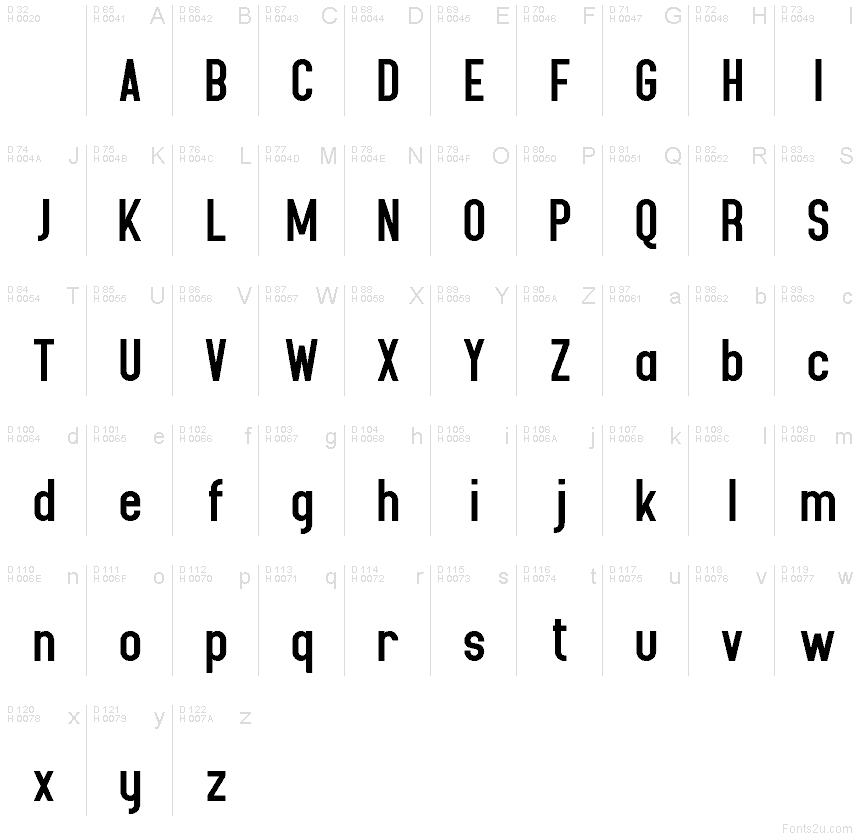
Climbing Nevis Demo
Climbing Nevis font by Braw Type is a modern, condensed sans-serif with a strong geometric and structured appearance. It features clean lines, offering an aesthetic that’s both minimalistic and contemporary.
This free sans serif font is perfect for posters, magazine layouts, book covers, branding designs, web design projects, newsletters, advertisements, social media graphics, logo creations and signage.